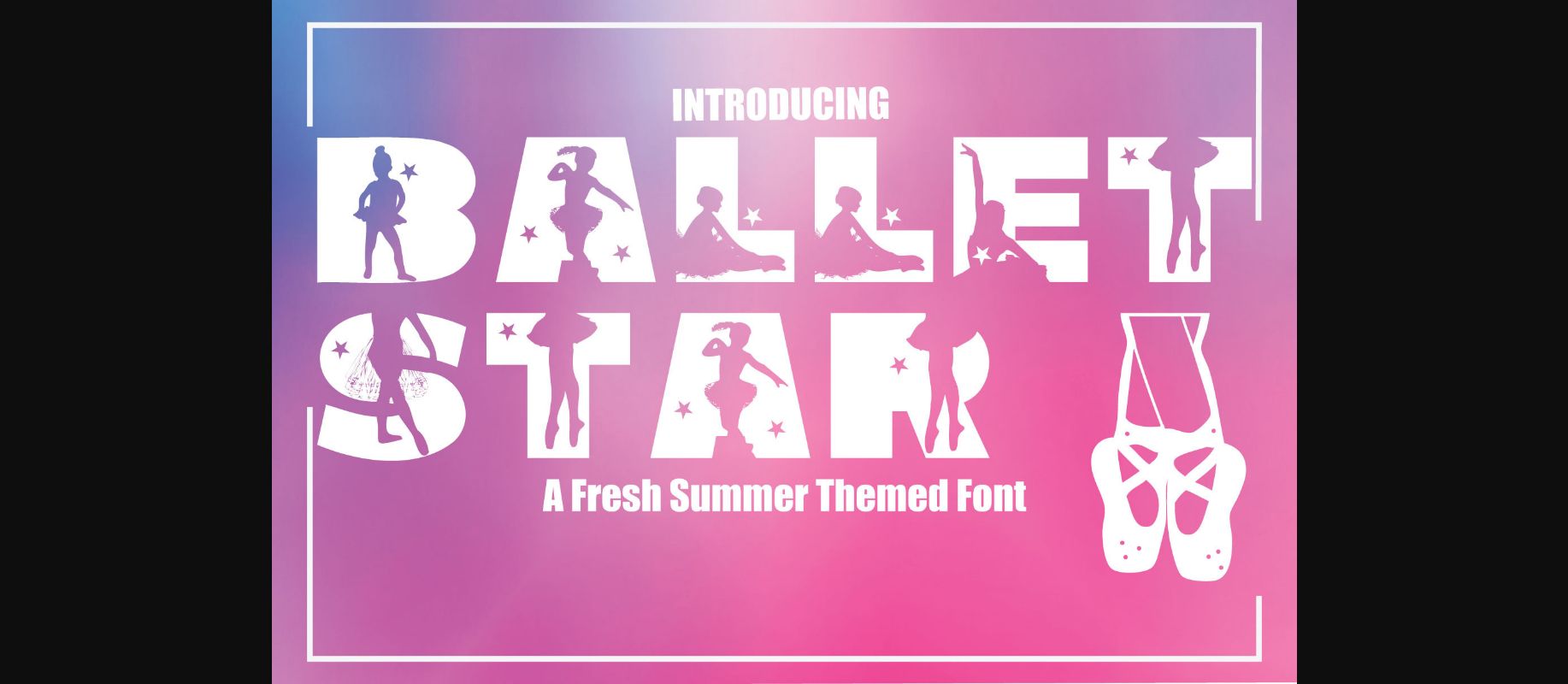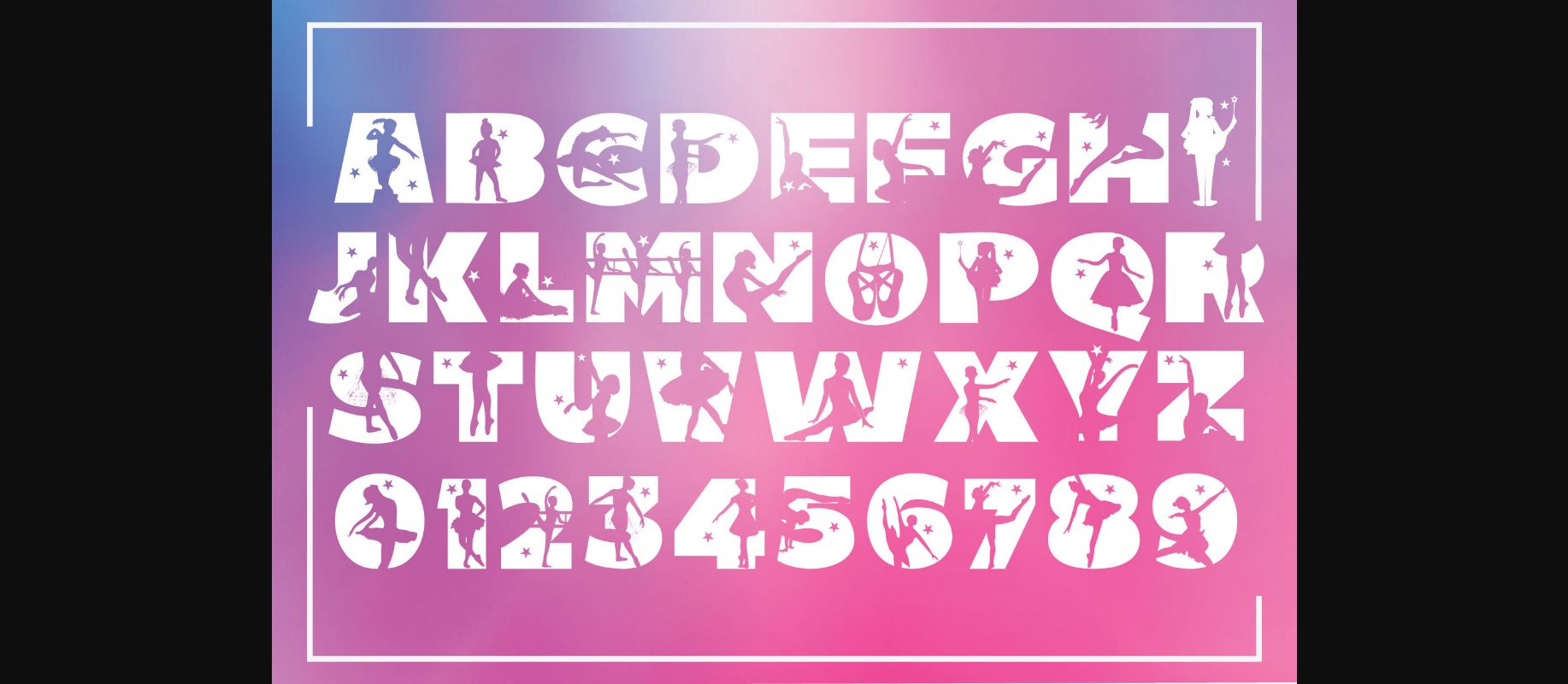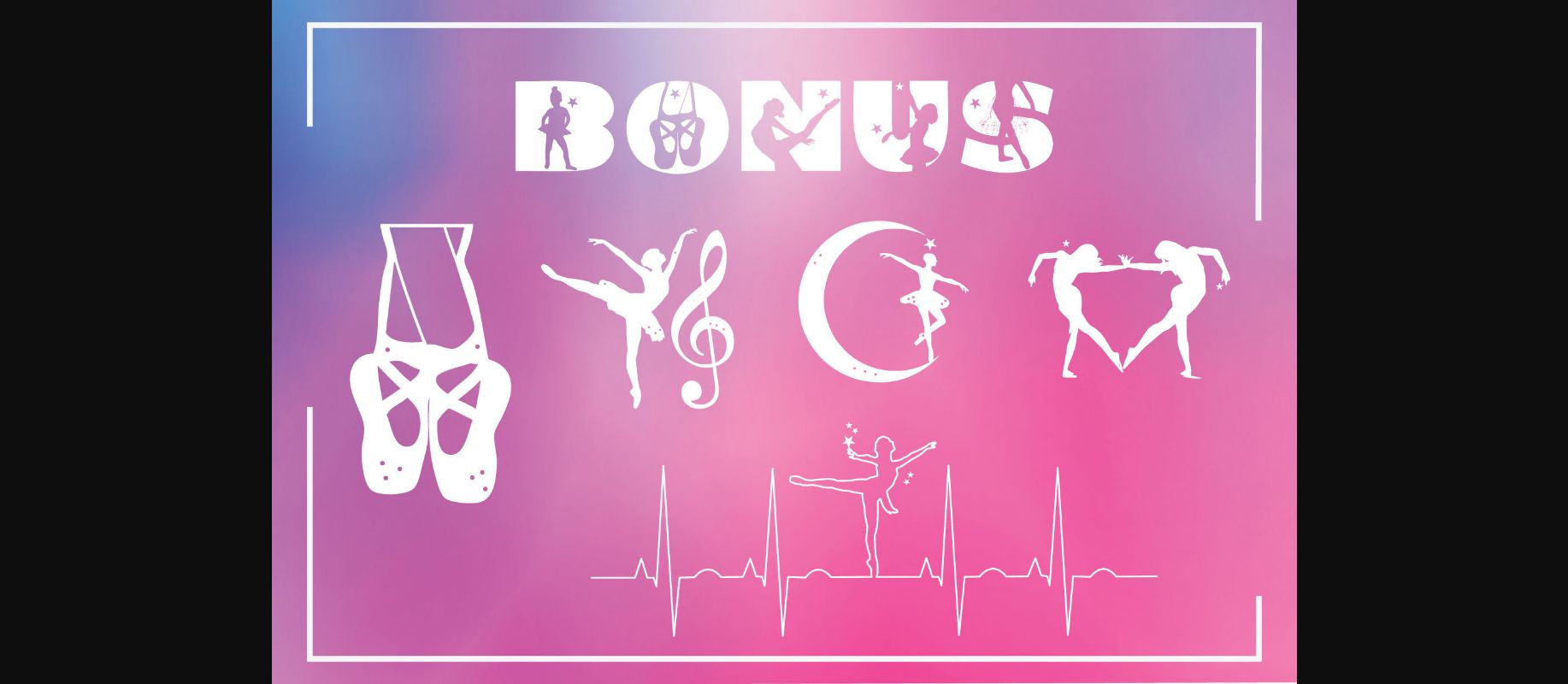
About Ballet Star Font
Ballet Star is a cool, bold, and fun decorative font, featuring ballerinas on each character. No matter the topic, this font will be an incredible asset to your fonts’ library, as it has the potential to elevate any creation.